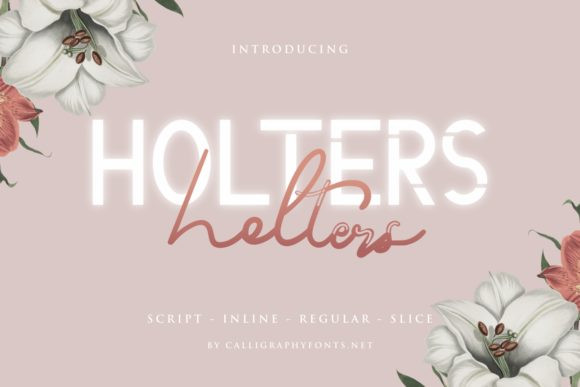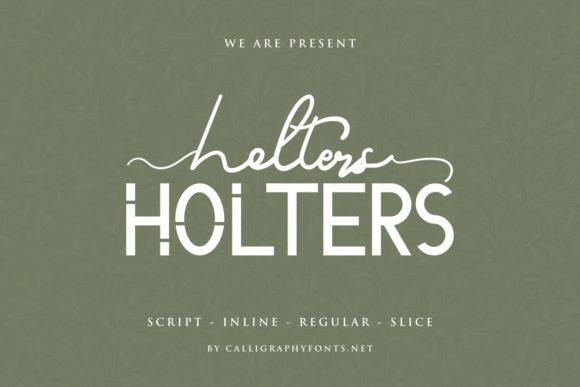
Holters Font
Holters is a beautiful duo font (display and script). Incredibly versatile, this font fits a wide pool of designs, elevating them to the highest levels. Add this font to your favorite creative ideas and notice how it makes them come alive!